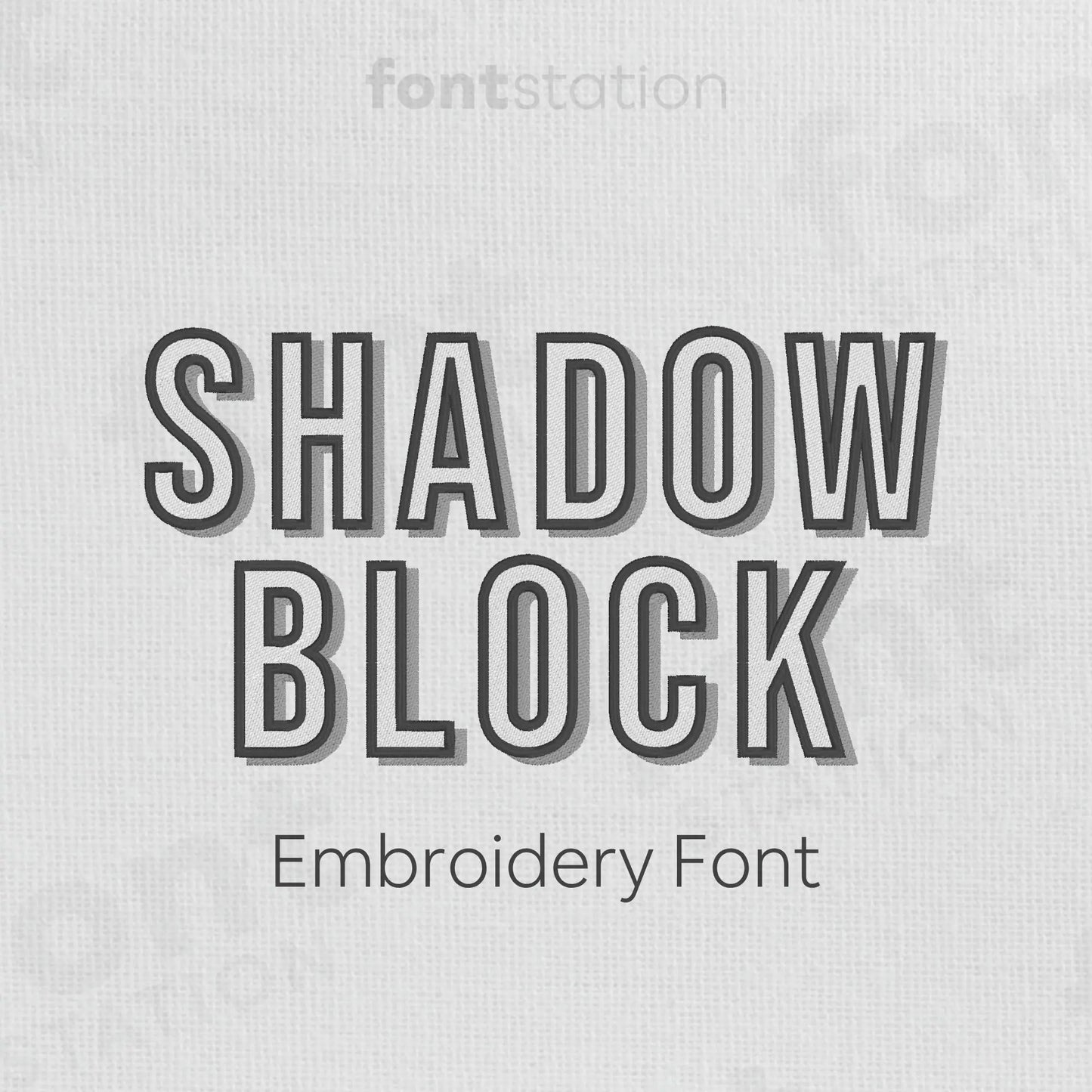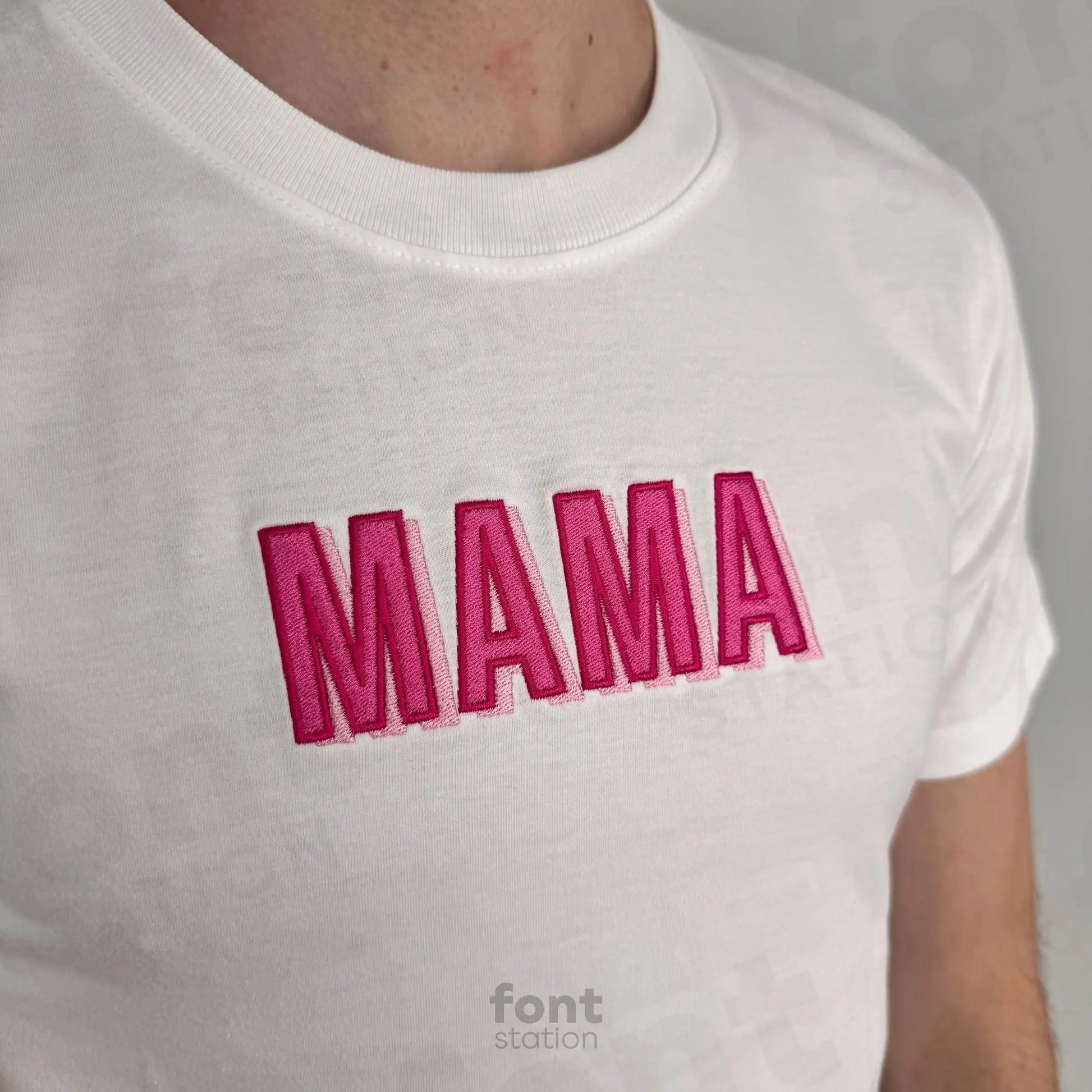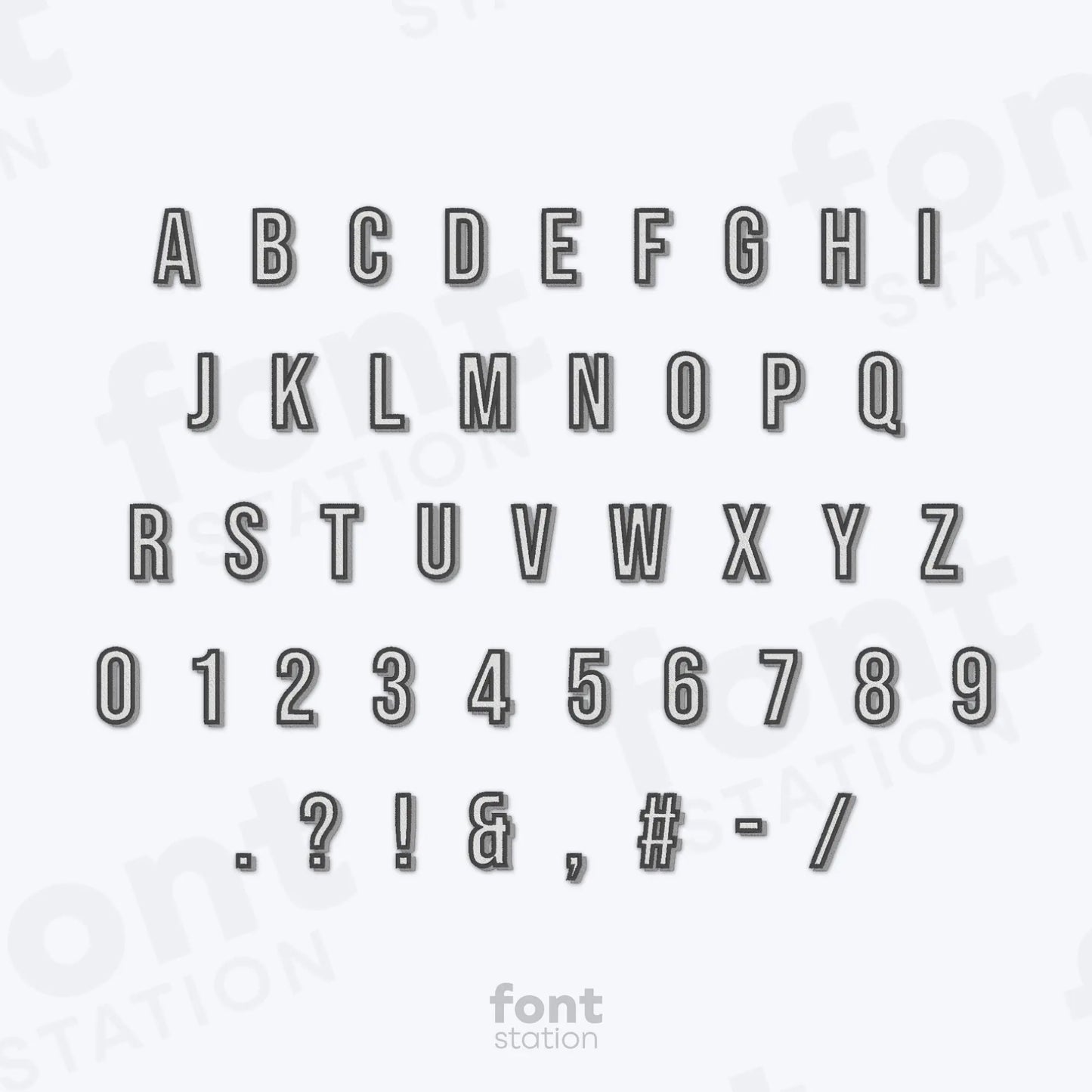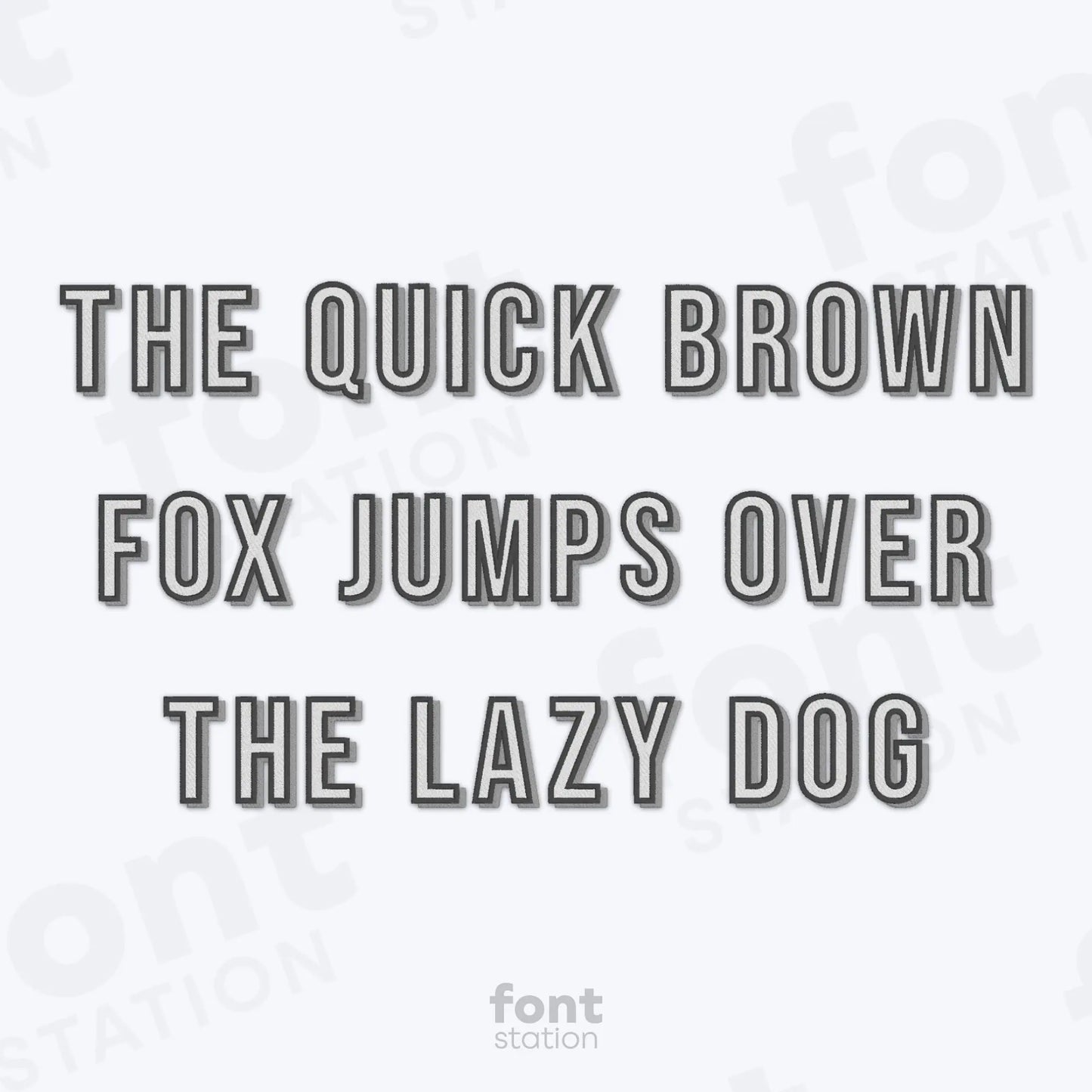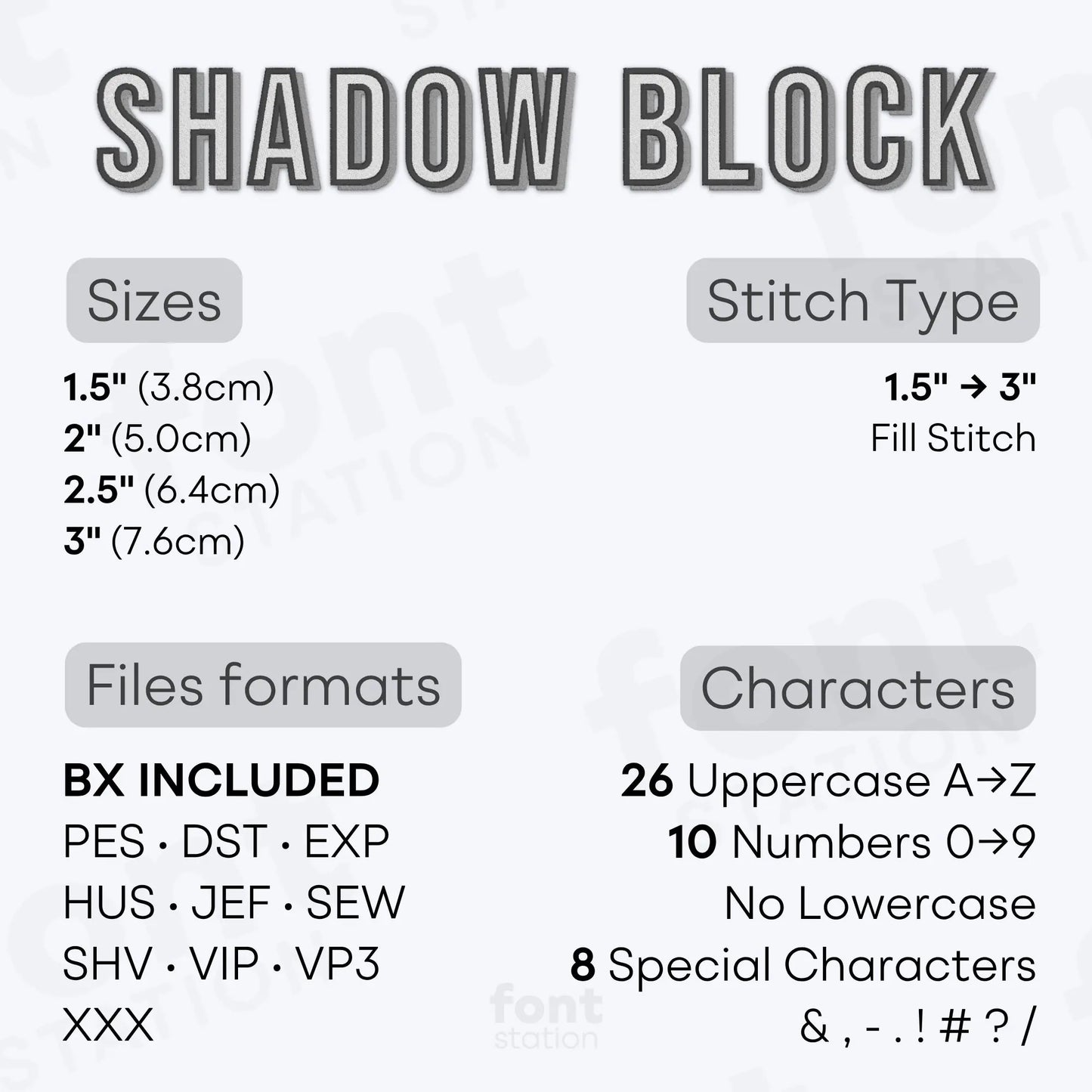
Shadow Block Embroidery Font
Introducing our Shadow Block embroidery font, a modern bold alphabet with striking monogram letters that stitch beautifully on your embroidery machine. Perfect for standout designs and any personalized project.
About the Shadow Block Embroidery Font
Our Shadow Block embroidery font brings a modern bold monogram style to your embroidery projects.
This standout machine embroidery font features a strong block alphabet with shadow-style letters designed for eye-catching monograms, names, logos, team gear, and modern embroidery designs. Its layered look adds depth, contrast, and personality to every project.